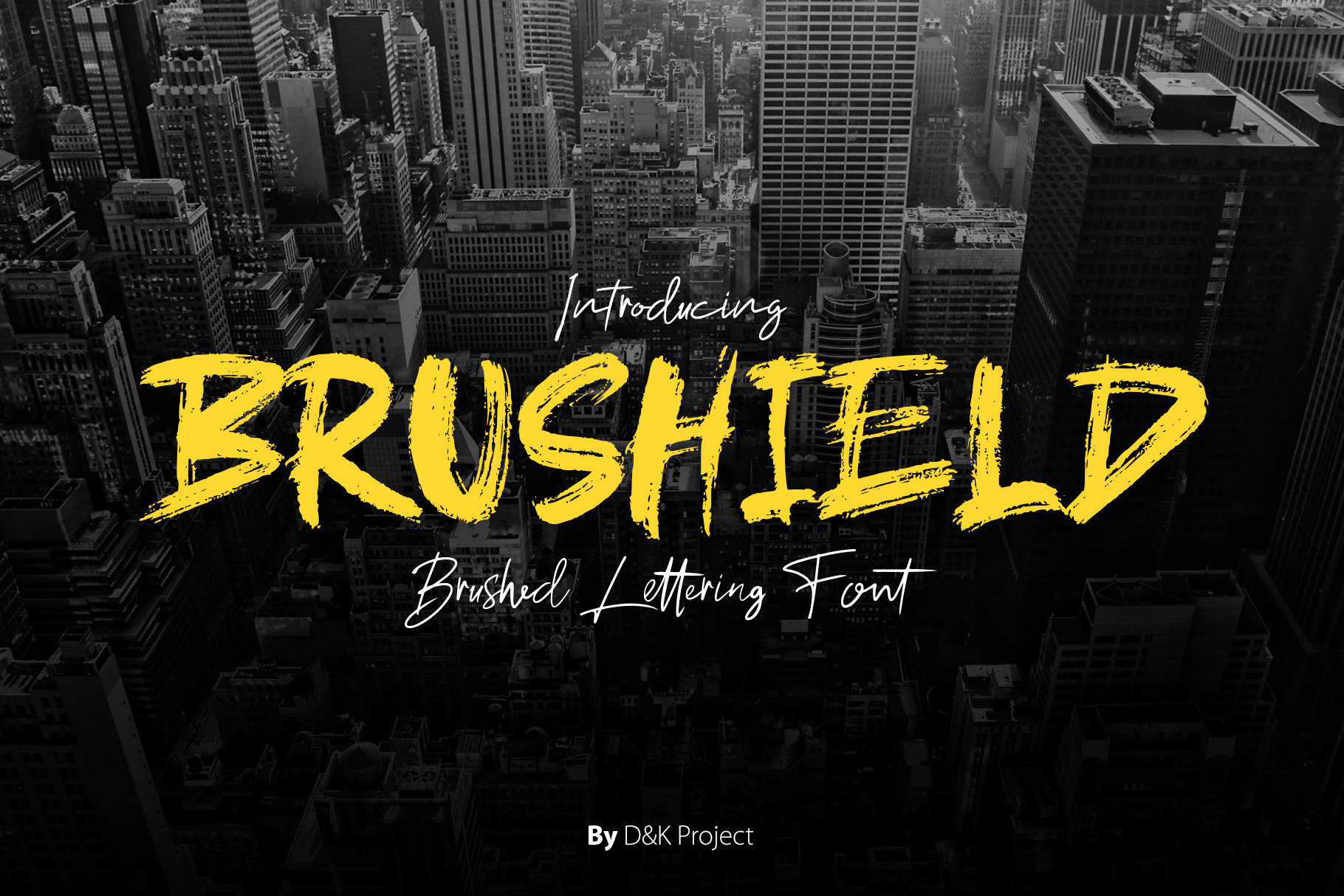
Brushield | Handwritten brush font
Brushield is brushes font basic from brushpen, is UNIQUE and very powerfull. Brushield is perfect for logotype, poster, and many other vintage or modern project.
- Regular and italic
- UPPERCASE and lowercase
- Panctuation and numeral